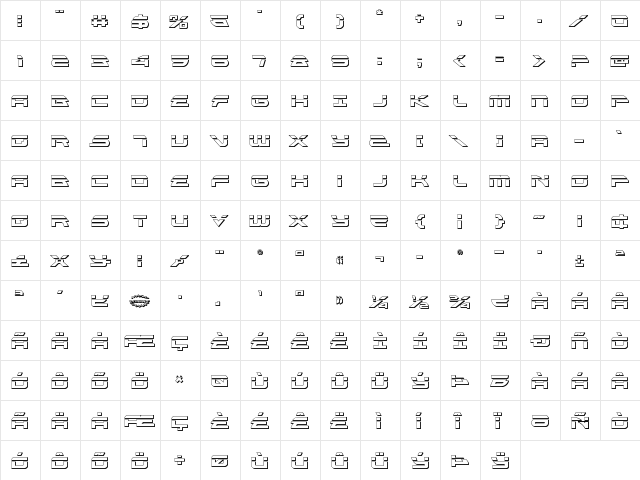
Alexis Bullet Regular
Design Context for Alexis Bullet Typeface
Alexis Bullet is a composed and adaptable typeface that performs quietly and consistently across a wide range of design contexts.
Pro Tip: Use Alexis Bullet in both headline and body roles to test its range before committing to a single application.